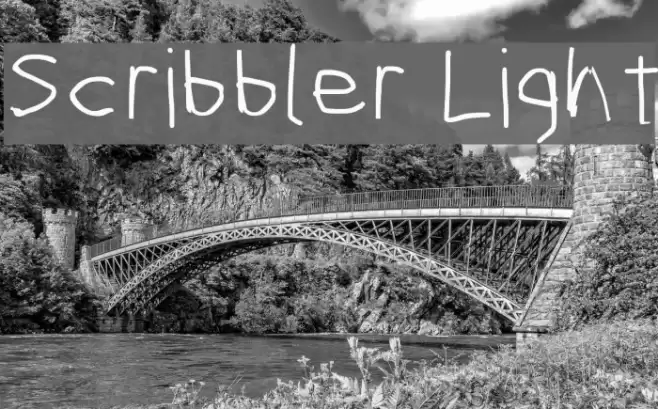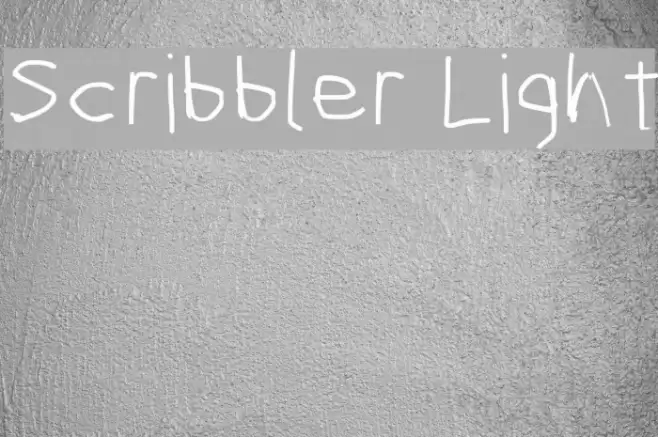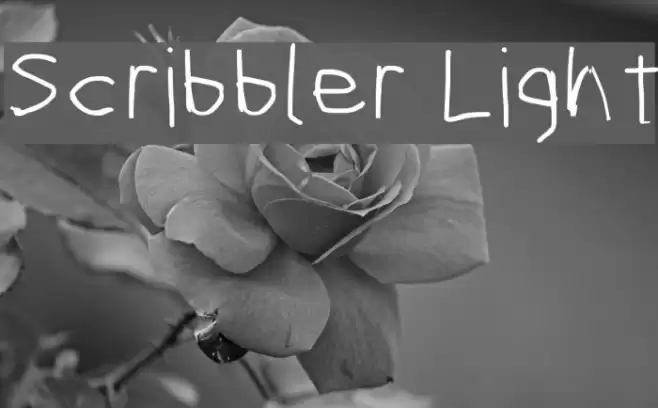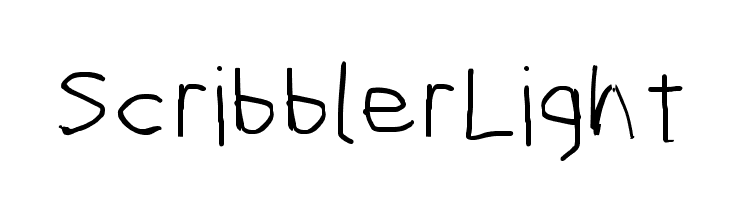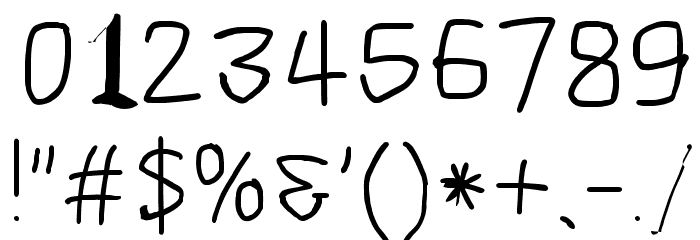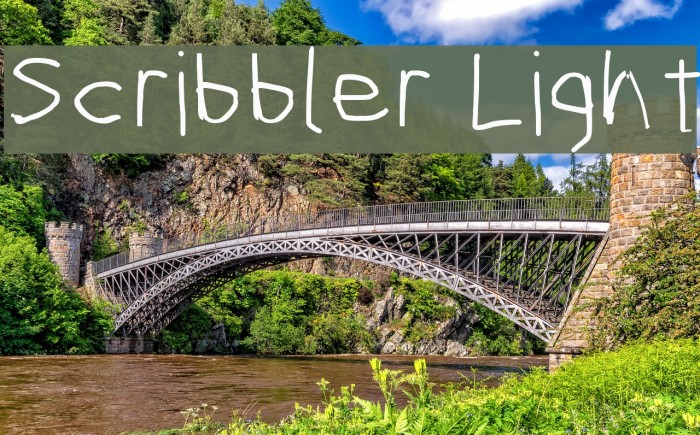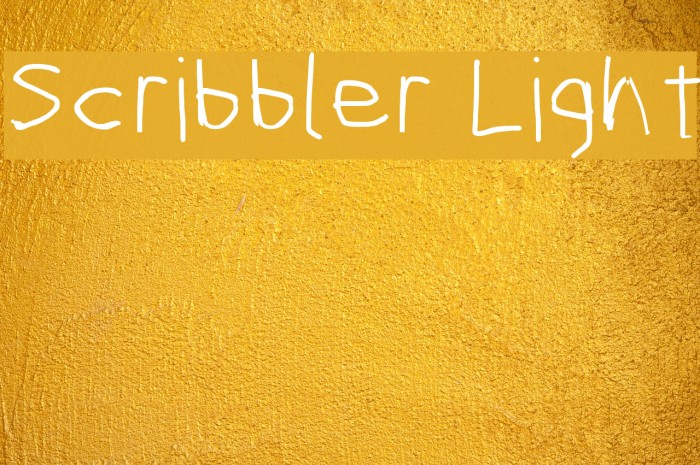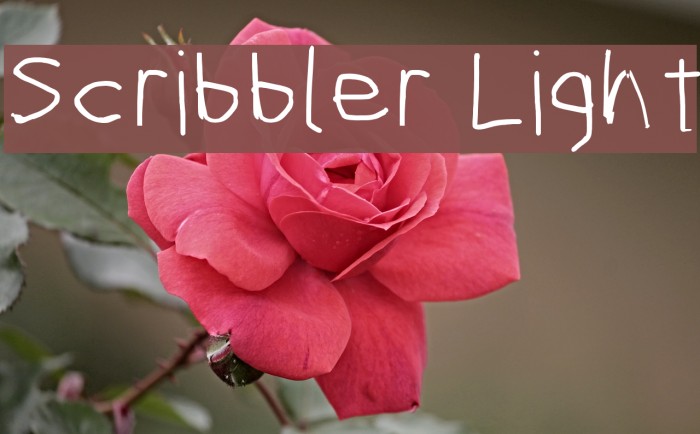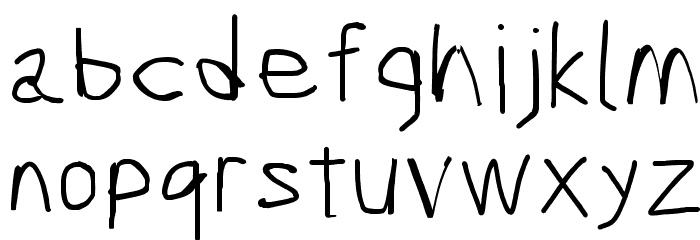
Scribbler Light
This font features a playful and informal handwritten style, characterized by its uneven strokes and casual appearance. The letters have a slightly irregular baseline, giving them a dynamic and lively feel. The uppercase and lowercase letters maintain a consistent style, with rounded edges and a slight tilt that adds to the font's whimsical nature. The numerals and special characters are crafted with the same playful touch, ensuring a cohesive look across all glyphs. This font is perfect for projects that require a personal and approachable touch, such as greeting cards, children's books, or creative branding.
A playful, informal handwritten font with uneven strokes and a whimsical feel.
- Proposed Projects: Ideal for greeting cards, children's books, creative branding, and informal invitations.
- Weight: Light
- Overall Style: Casual
- Use Case: Headlines, Informal text, Creative projects